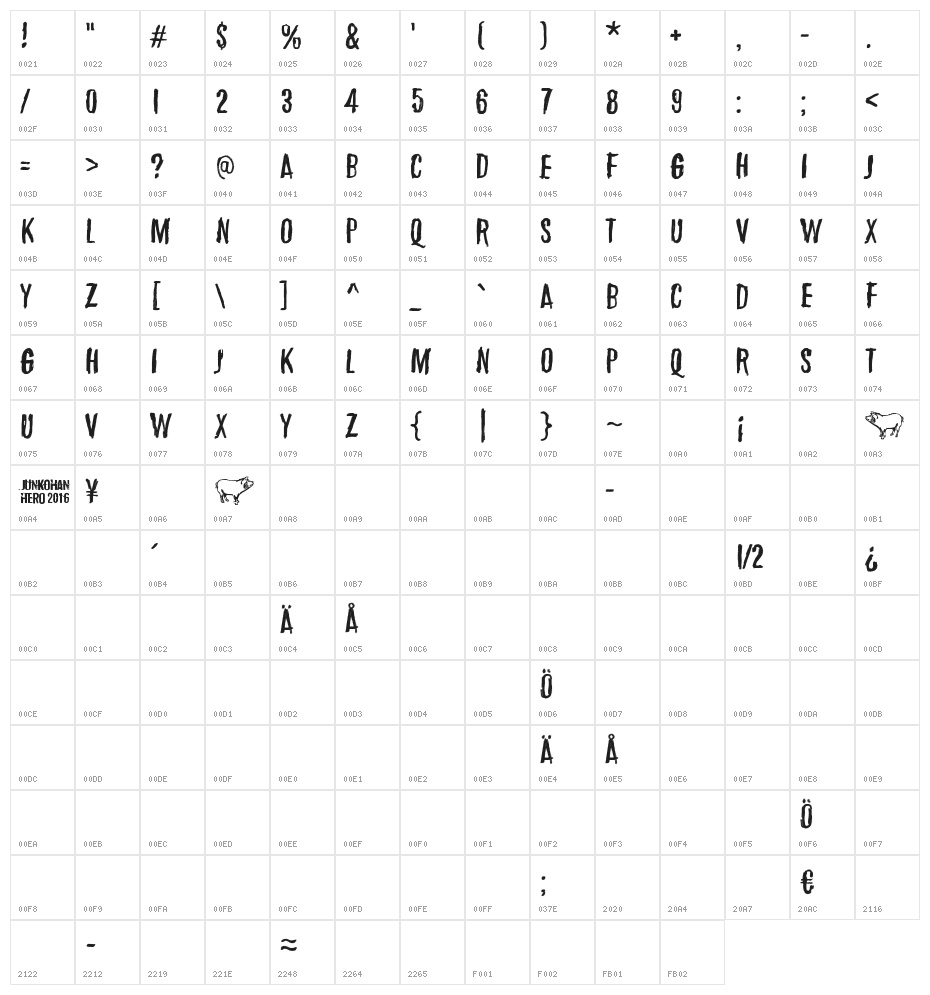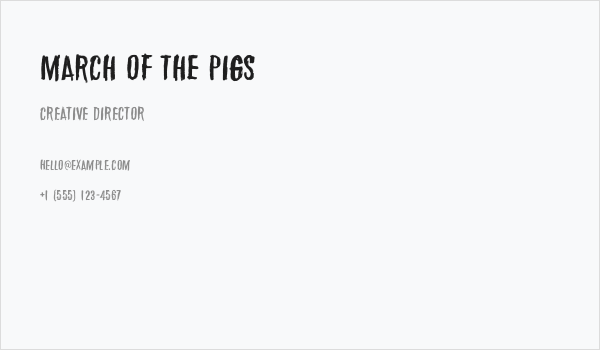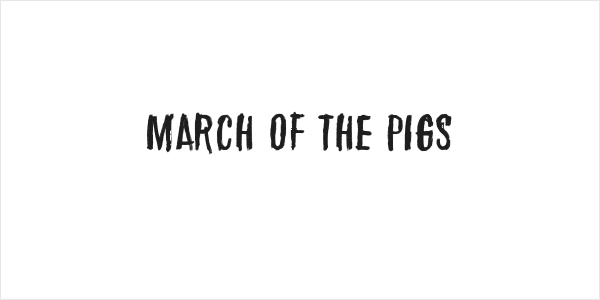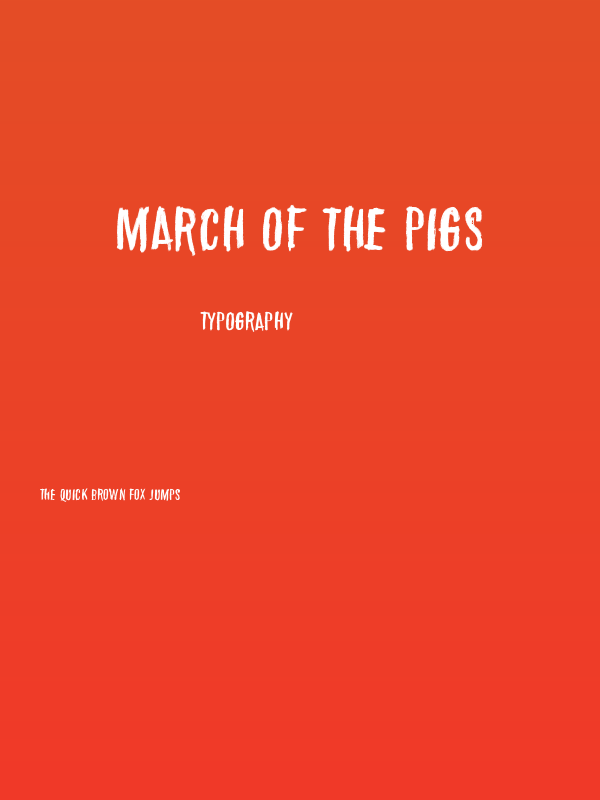
March of the pigs Font
March of the pigs Description
This font features a bold, hand-painted style with a rough, textured appearance. The characters are slightly irregular, giving it an organic and dynamic feel. The uppercase letters are tall and narrow, while the lowercase letters maintain a consistent height, creating a cohesive look. Numbers and special characters follow the same stylistic approach, ensuring uniformity across all glyphs. The brush-like strokes and uneven edges add a sense of movement and energy, making it ideal for projects that require a bold and artistic touch.
| Proposed Projects | Ideal for posters, album covers, branding, and artistic projects that require a bold, expressive touch. |